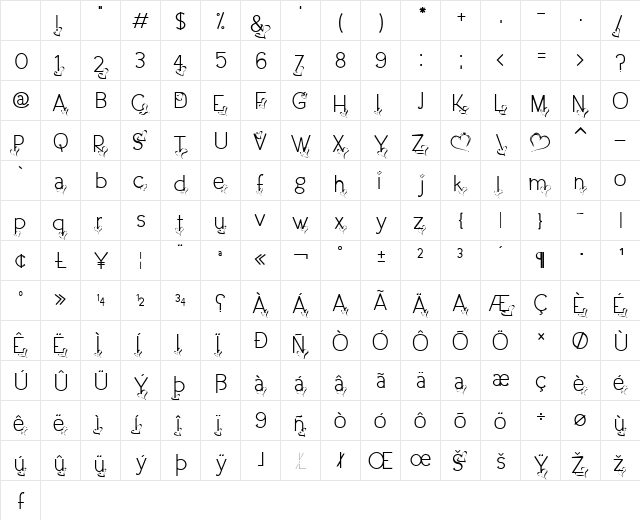
Complete Dream Love Valentine Light glyph index. Displaying only characters natively supported by Dream Love Valentine Light font.
Dream Love Valentine is a composed and adaptable typeface that performs quietly and consistently across a wide range of design contexts. Its slender proportions lend an understated elegance to any composition.